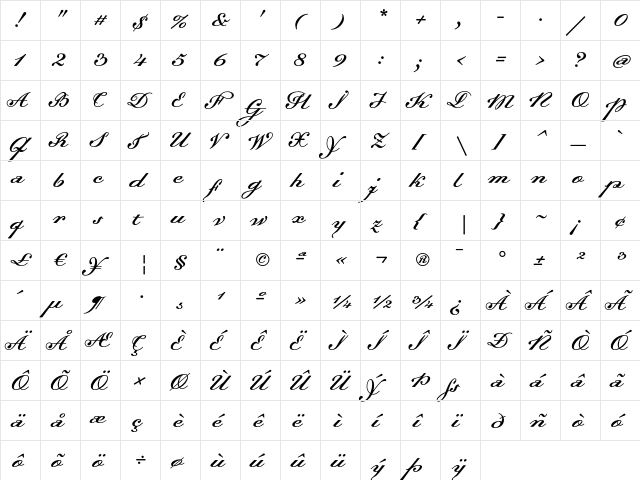
Dalliance Script
| Style | Script |
Design Context for Dalliance Typeface
Dalliance brings a calligraphic fluidity to the page — its connecting strokes and expressive curves give it an unmistakably human quality.
Font Pairing: Combine Dalliance with a simple geometric sans for maximum contrast — the tension between flowing curves and clean structure is a classic typographic pairing.
Pro Tip: Pair Dalliance with a clean sans-serif for supporting text. The contrast between fluid script and geometric structure creates an elegant typographic hierarchy.